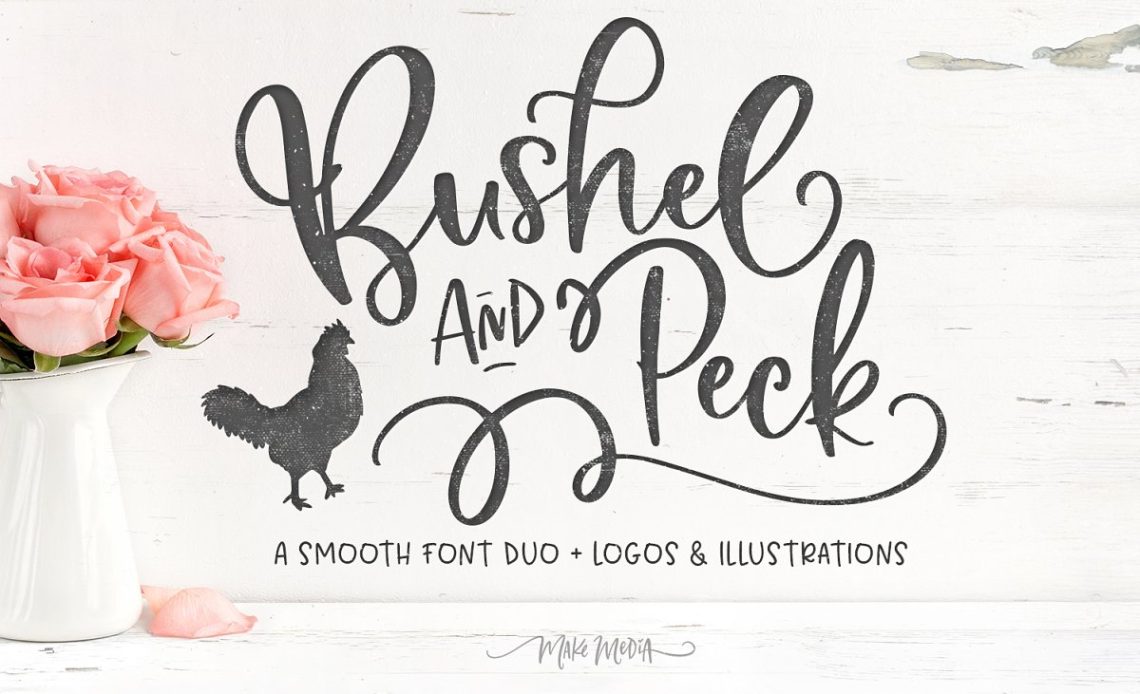
Looking for the perfect font to elevate your Cricut banner? Look no further than Bushel & Peck Fonts & Logos! Created by the talented Callie Rian Hegstrom, this script font family is everything you need to add a touch of farmhouse charm to your designs.
With over 50 alternate characters, Bushel & Peck is a smooth, flirty script that will make your banners stand out from the crowd. Whether you're a small business owner or a DIY enthusiast, this font has the personality and versatility to suit all your creative needs.
But that's not all! When you purchase Bushel & Peck, you'll also receive the italic version for those moments when you need a little extra emphasis. Plus, the sans serif font adds a simple, handwritten touch to complement your script.
To make your designs even more captivating, this collection includes 185 hand-illustrated farmhouse vectors that will bring your ideas to life. From rustic elements to charming motifs, these vectors will add the perfect finishing touch to your banners.